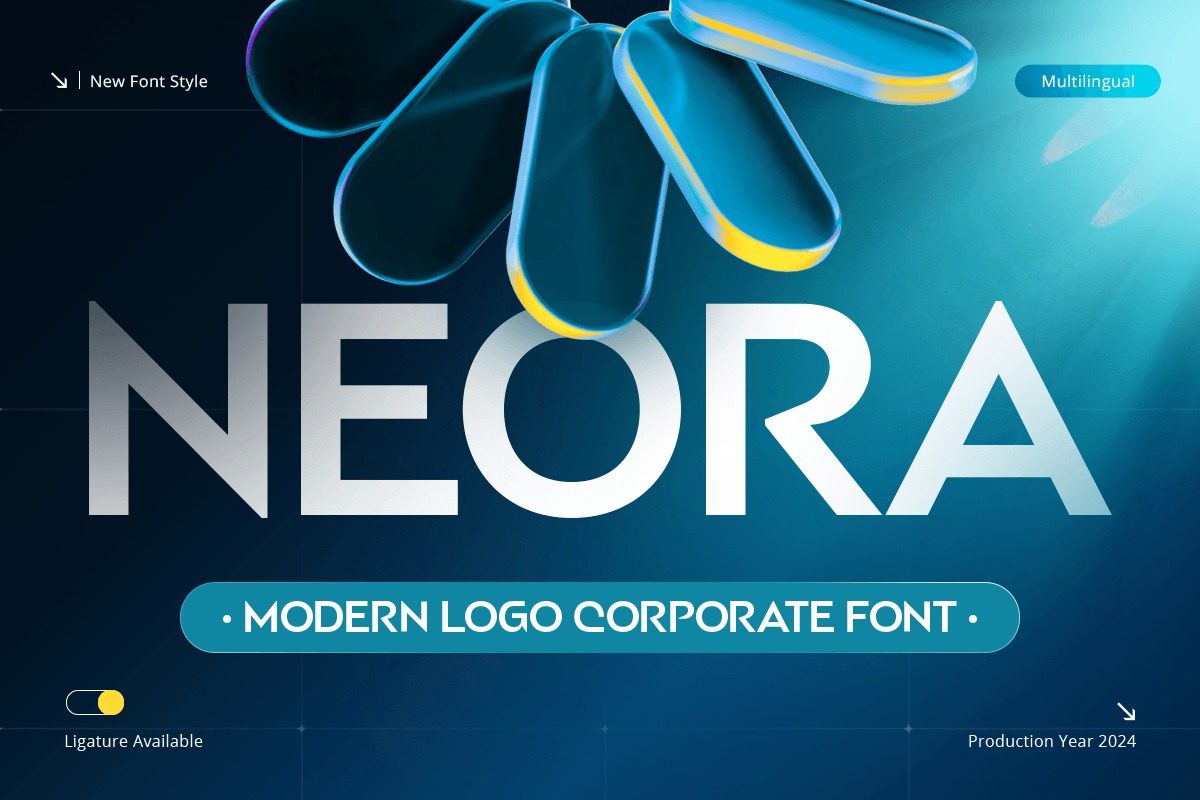
Neora – Modern Sans Serif Font
Neora – Modern Sans Serif Font is a premium-quality font developed to enhance your work with a polished, modern, and visually elevated look. Neora – Modern Logo Corporate Font is a professional corporate font designed for business branding, logo design, company identities, and modern visual communication. Inspired by contemporary corporate branding and clean business aesthetics, Neora delivers a refined and trustworthy appearance that helps brands establish credibility and recognition.
Featuring clean letterforms, balanced proportions, and a modern corporate structure, this logo font is crafted to communicate professionalism, consistency, and confidence. Its versatile design performs exceptionally well across logos, brand assets, marketing materials, and digital platforms, making it a valuable choice for businesses of all sizes.
Whether you’re developing a corporate identity, launching a startup, designing a professional logo, or building a modern business brand, Neora provides the clarity and sophistication needed for effective communication.